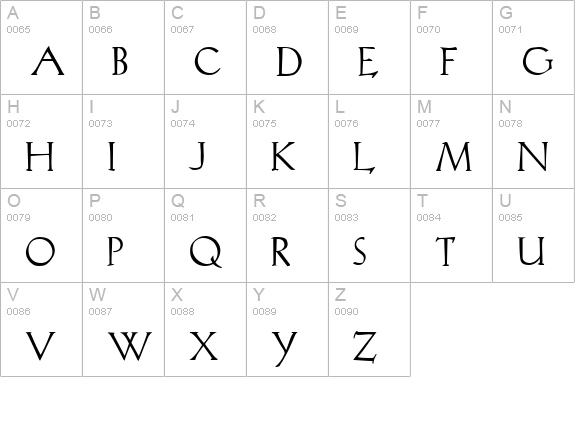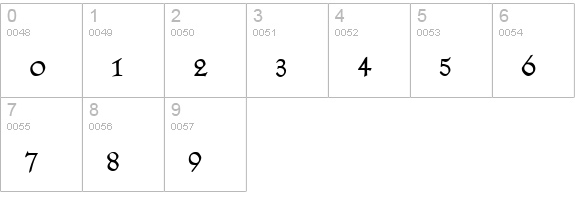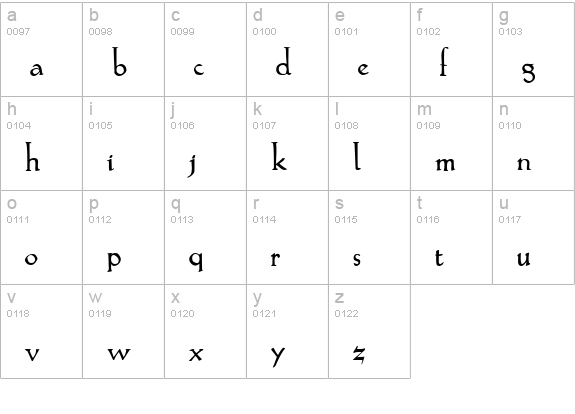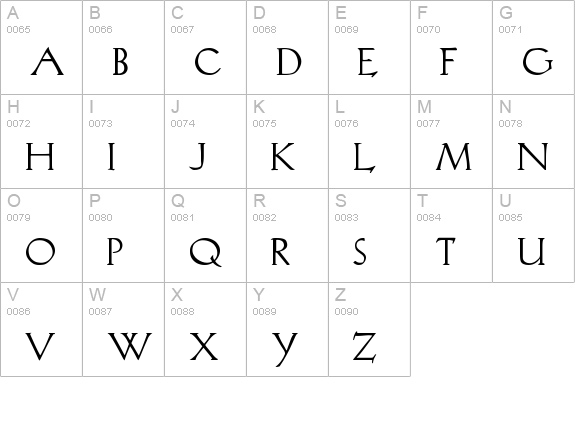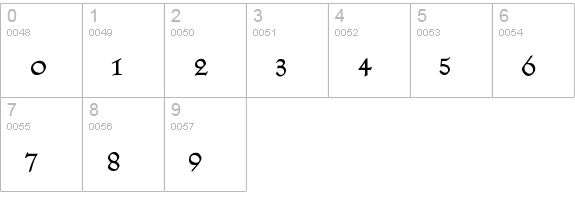
Lilith Bold is a strong, high-contrast variant in the Lilith typeface family \xE2\x80\x94 well suited to headlines, attention-grabbing titles, and strong calls-to-action.
Lilith Bold font is a striking and modern typeface that exudes confidence and boldness. Its clean lines and distinct curves make it perfect for grabbing attention and making a statement in any design project. The thick strokes of the letters give a strong and powerful presence, while the sleek design adds a touch of sophistication. This versatile font is ideal for a wide range of design applications, from logos and branding to headlines and titles. It can easily be paired with other fonts for a unique and eye-catching look. Whether you're working on a poster, website, or any other creative project, Lilith Bold font will help your message stand out. The best part? Lilith Bold font is available for free download at FontsMarket.com. So go ahead and give your designs a bold and modern edge with this fantastic typeface.